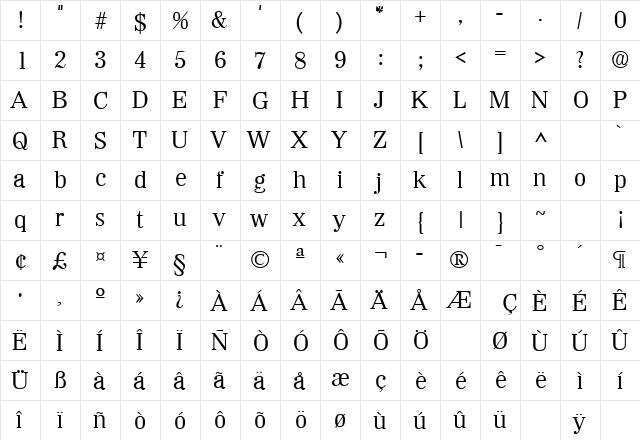
Wichita Regular Font Preview
Wichita Regular
Wichita Regular Font Details
Design Context for Wichita Typeface
Wichita is a composed and adaptable typeface that performs quietly and consistently across a wide range of design contexts.